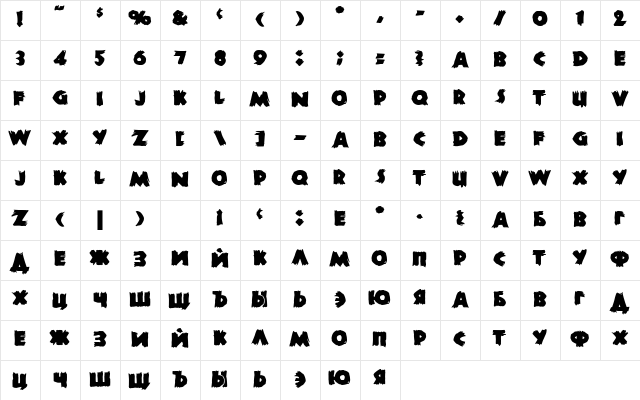
DS Zombie Cyr Bold Font Preview
DS Zombie Cyr Bold
Design Context for DS Zombie Cyr Typeface
DS Zombie Cyr is a composed and adaptable typeface that performs quietly and consistently across a wide range of design contexts. Its bold stroke weight gives it real presence on the page.